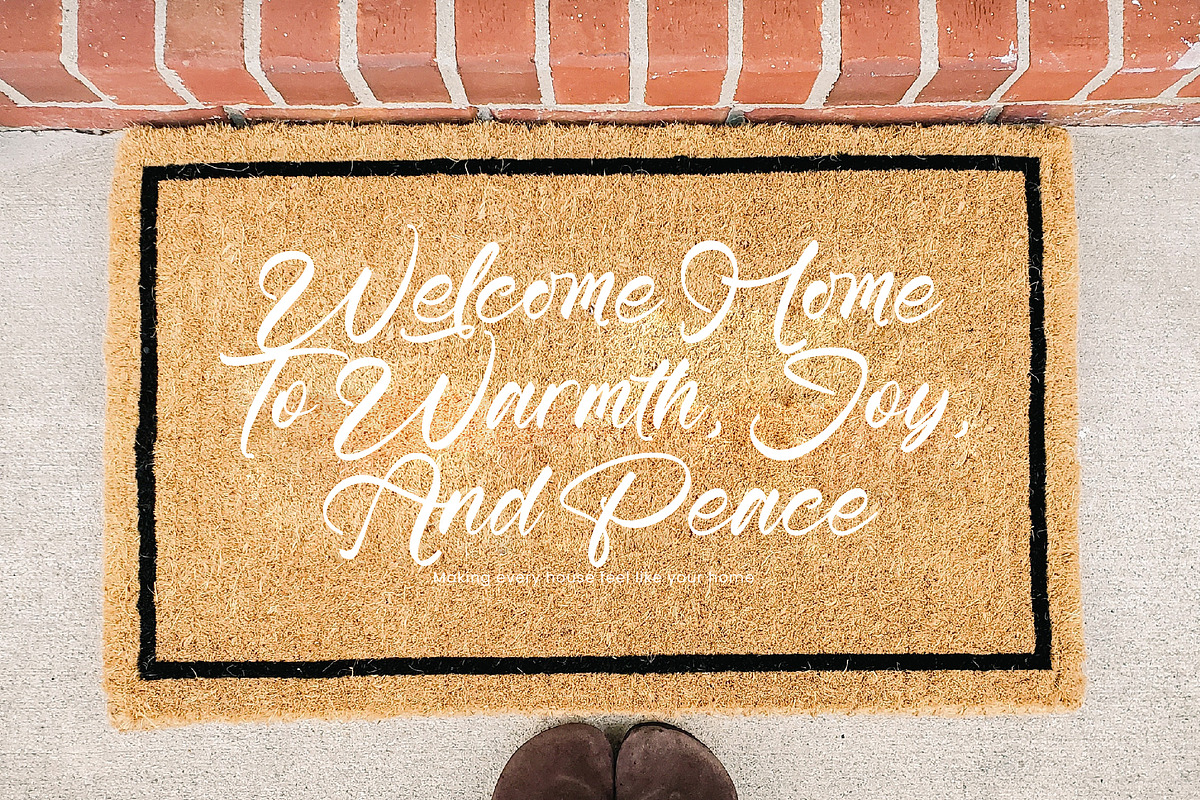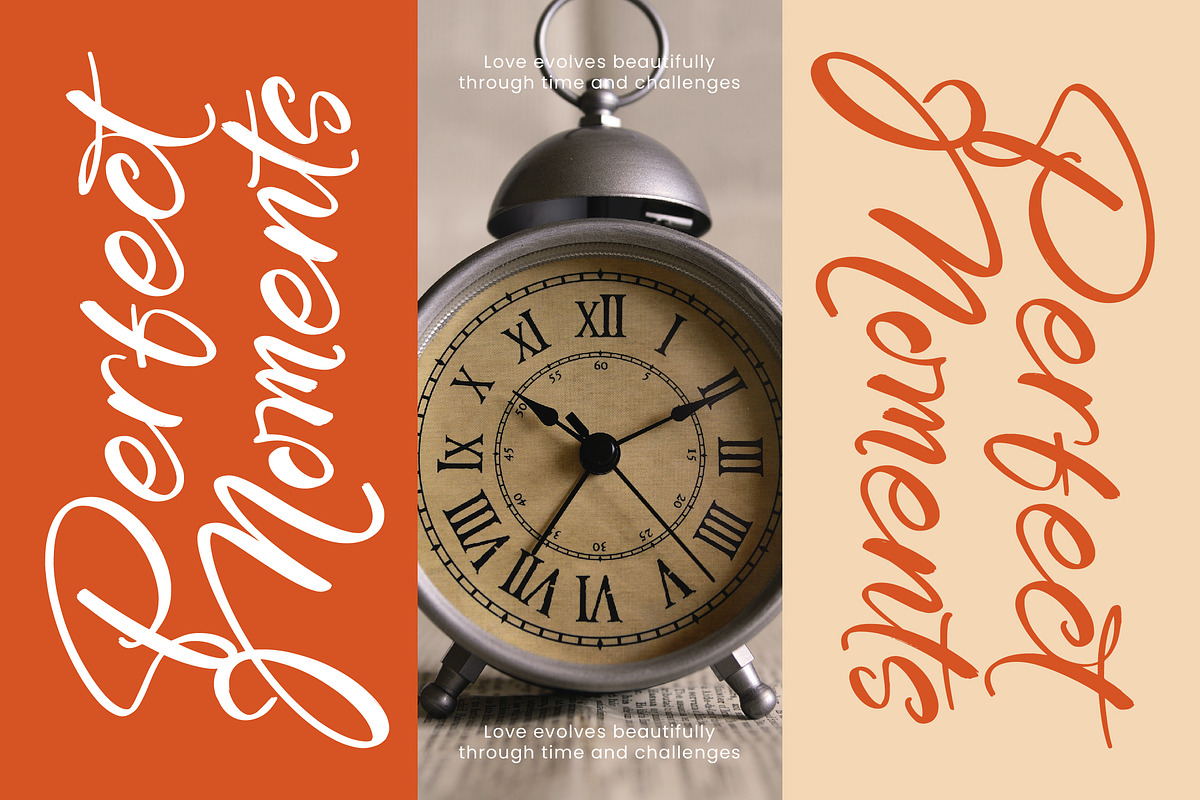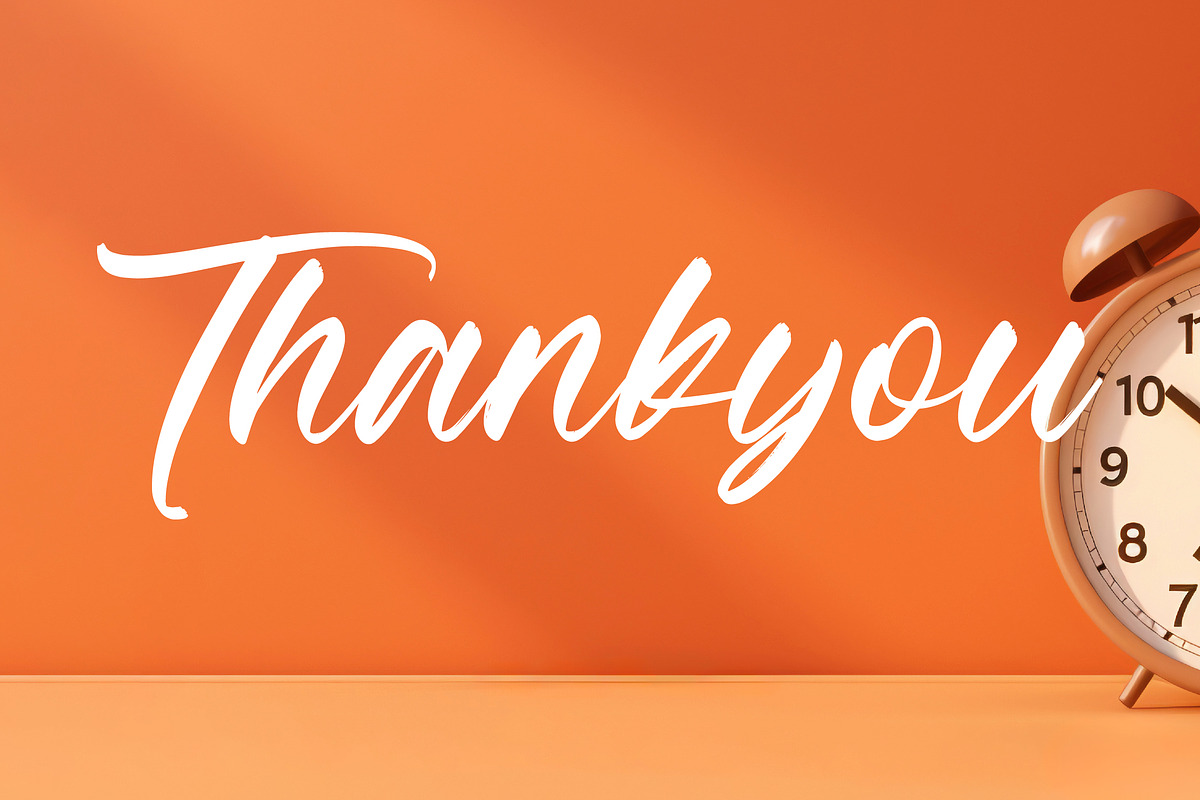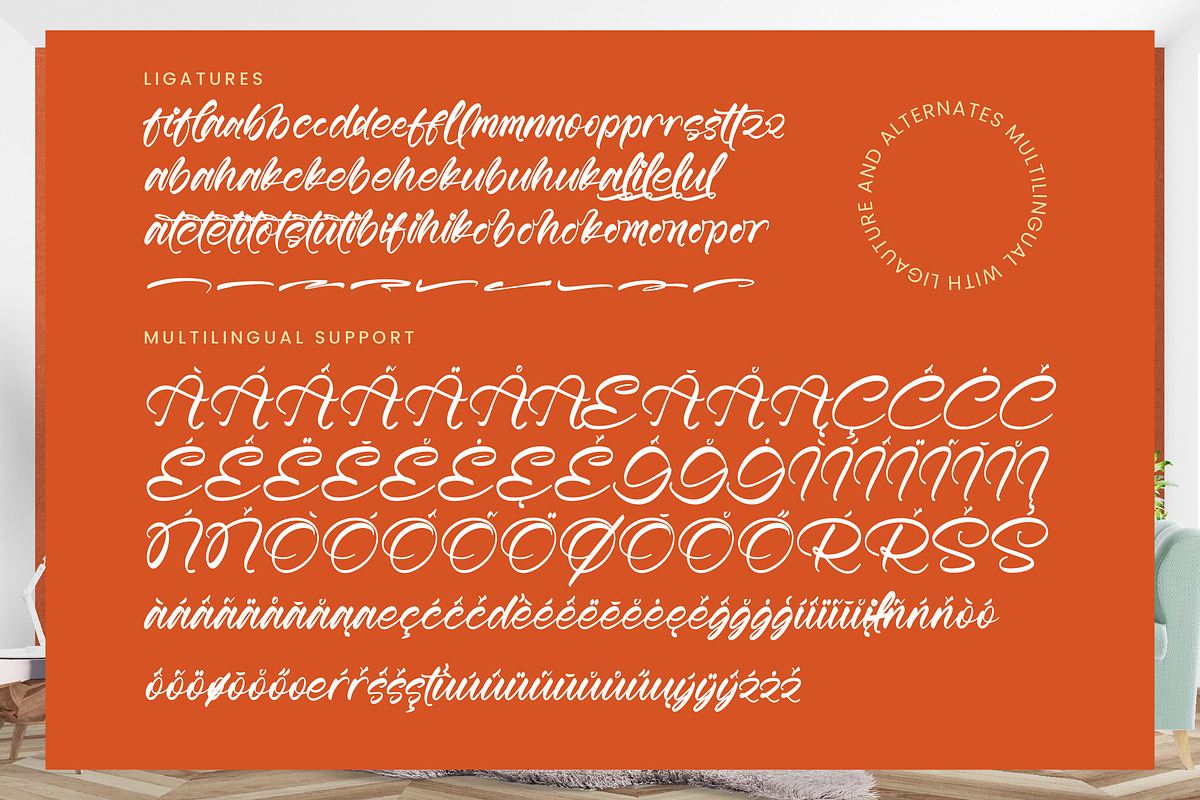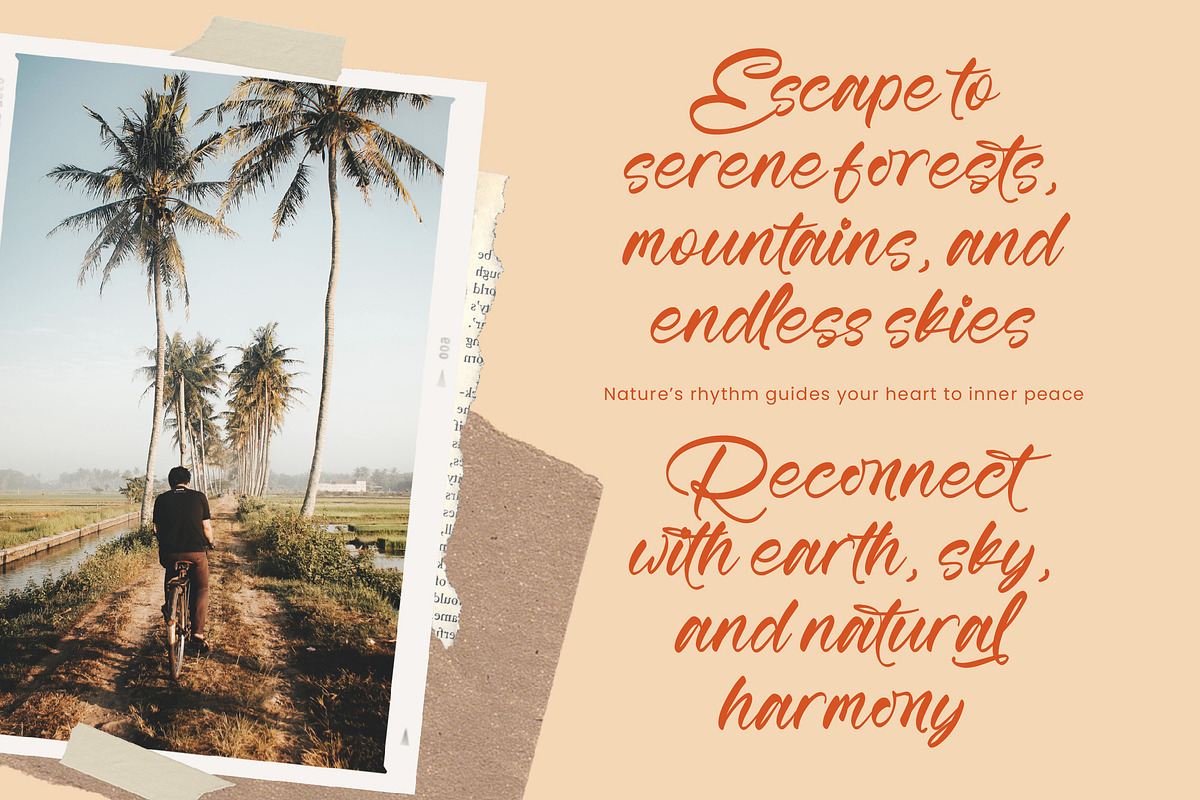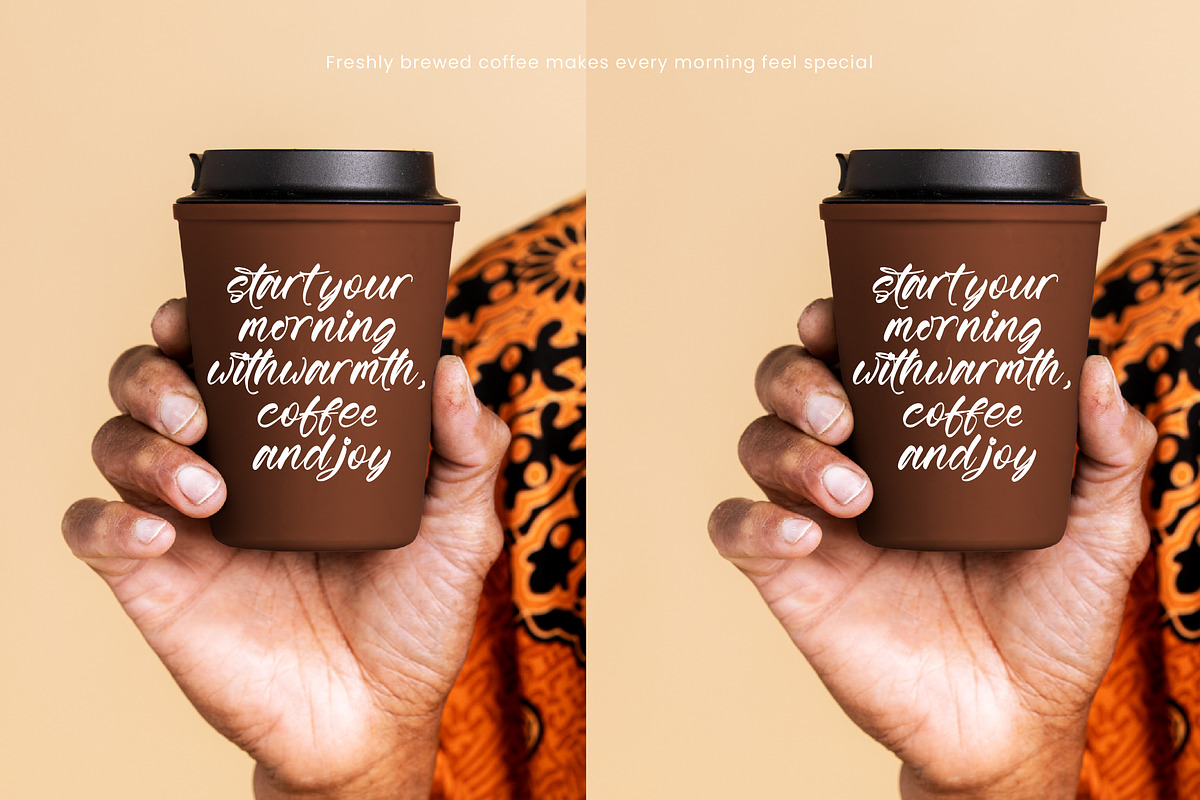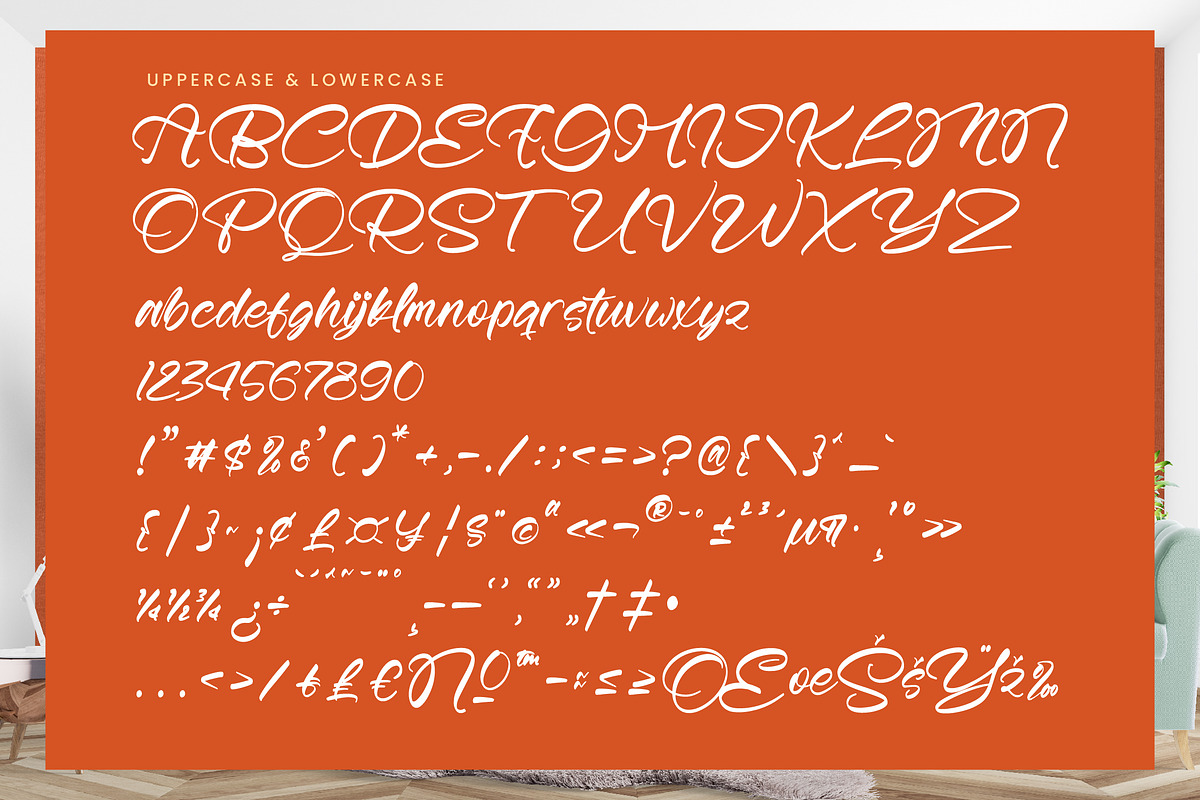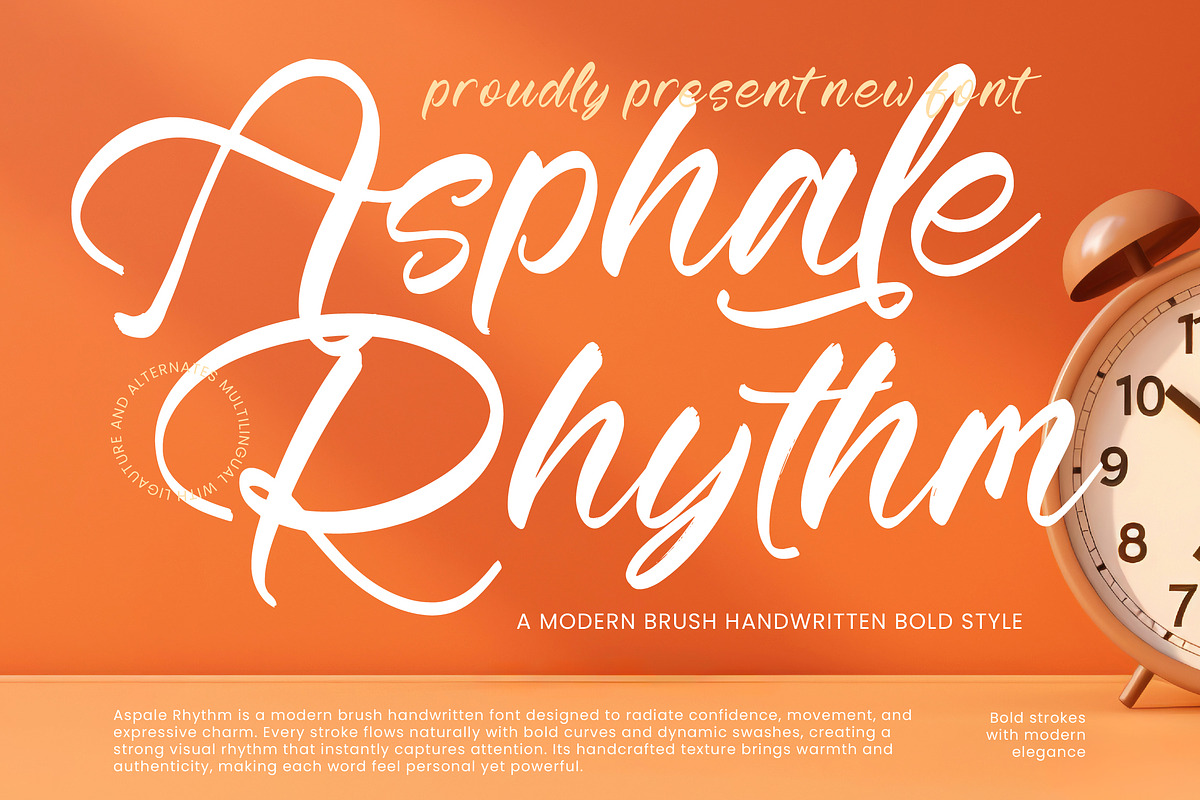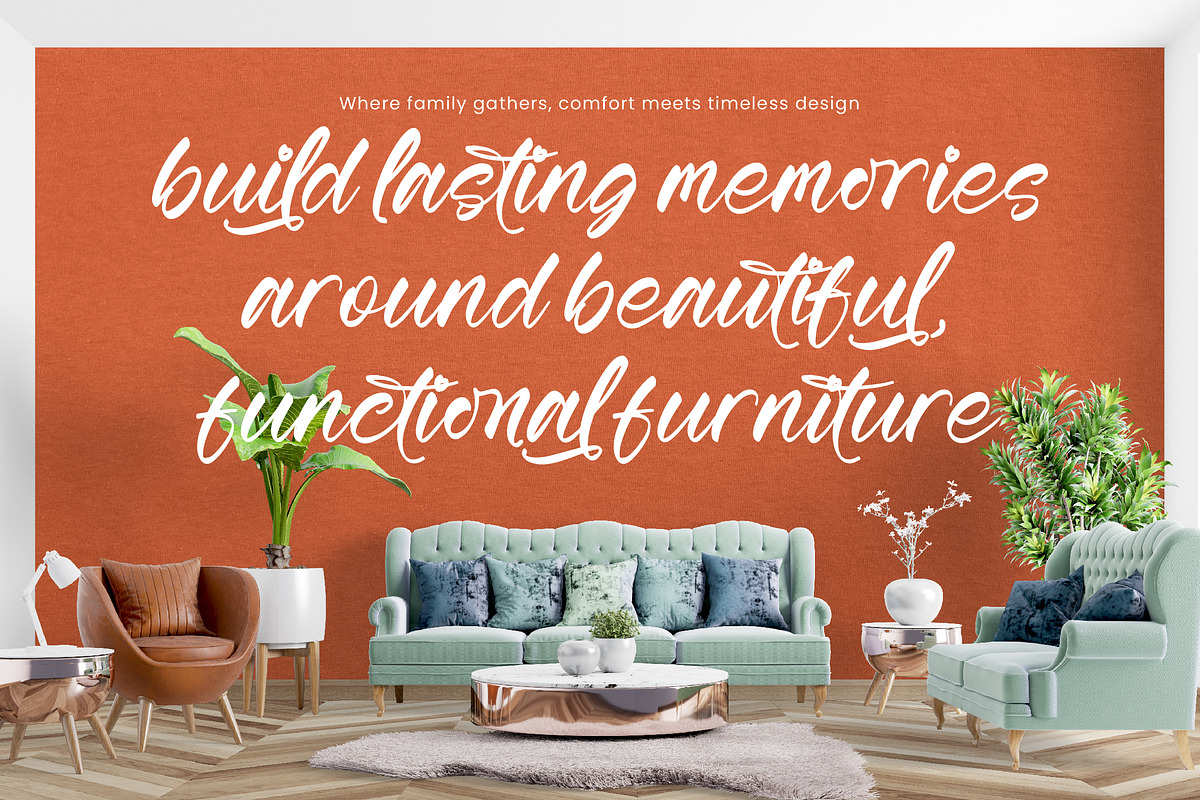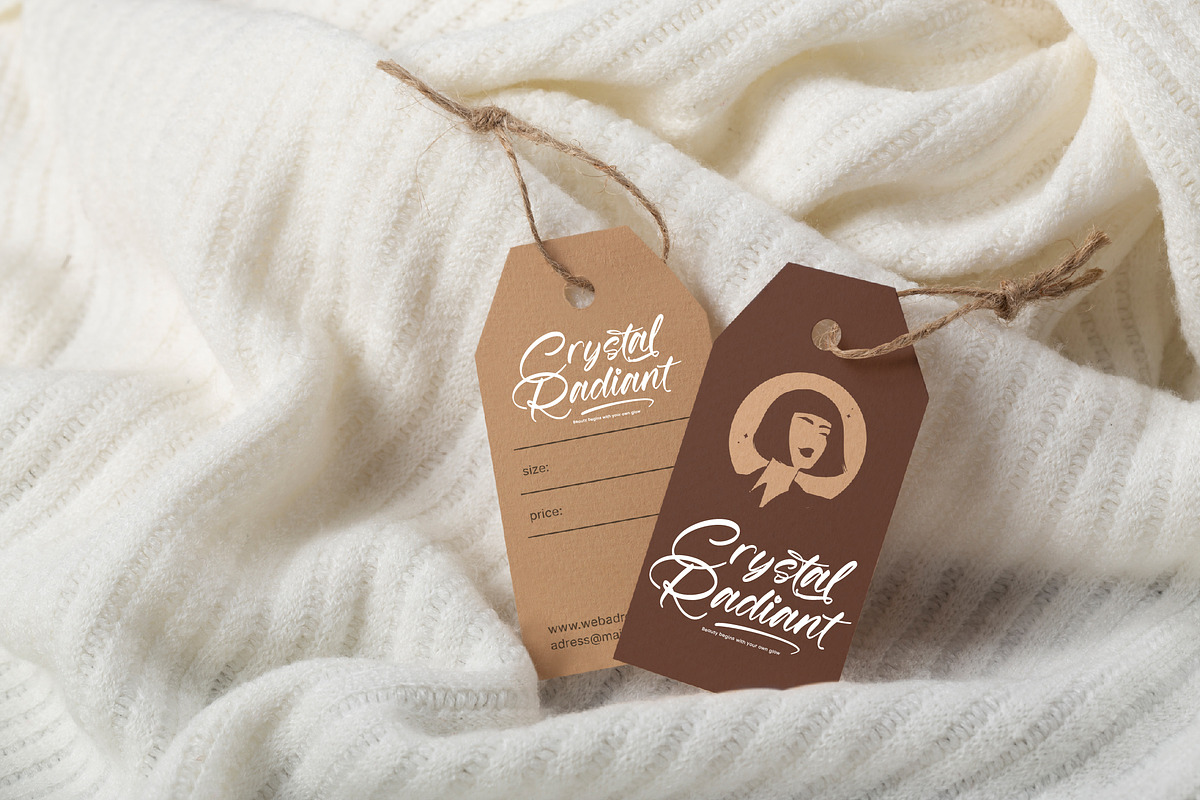
Asphale Rhythm
Asphale Rhythm - A Modern Brush Handwritten Bold Style, from Operatype, perfect for any project like: logos, branding projects, homewares designs, product packaging, mugs, quotes, posters, shopping bags, t-shirts, covers books, business cards, invitation cards, greeting cards, labels, photography, watermarks, special events and all your other luxury projects that require a premium taste.
Ligatures, Alternate & Swashes